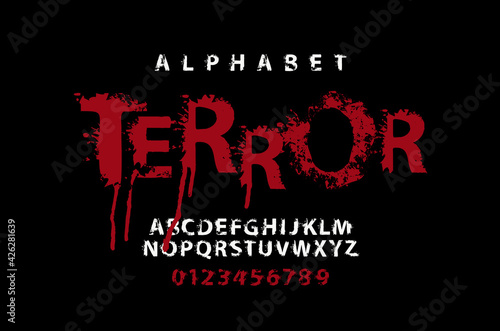
TERROR lettering in scary dripping bloody letters. Vector set of white alphabet letters and numbers in grunge style on a black background. Splash Alphabet. Horror font for headline, poster, label